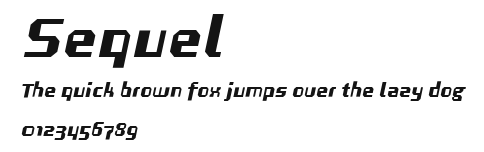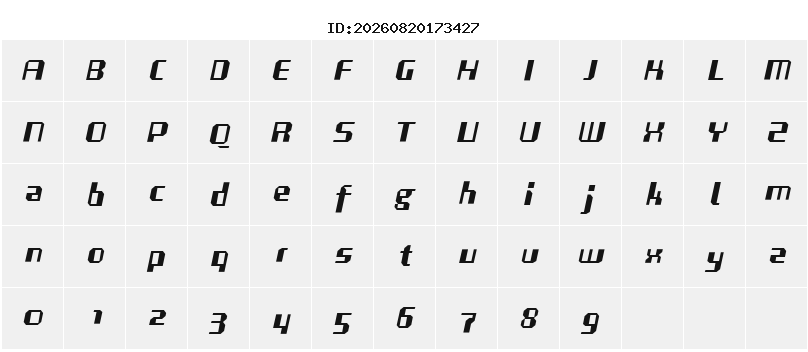
• Font Name: Sequel
• Full Font Name: Sequel Italic
• PostScript Name: Sequel-Italic
About Sequel.ttf
Sequel.ttf is a modern, elegant sans-serif font designed for ultimate readability and visual harmony. Perfect for branding, headlines, web design, and print materials.